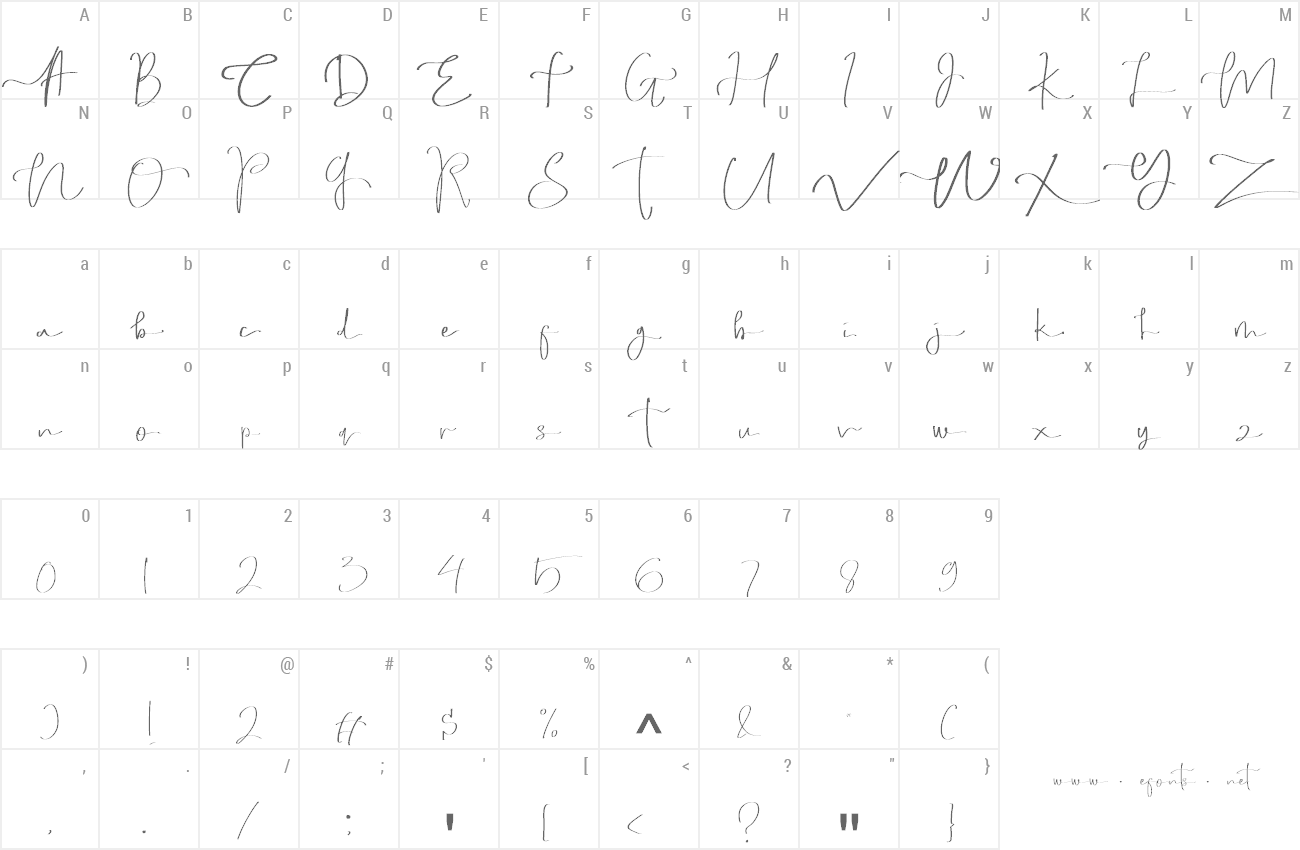
Preview and download Sweet Poems Font. Created by Ontohood in Script Handwritten styles with 100% Free license.
| Font name: | Sweet Poems |
| Author: | Ontohood |
| Note by Ontohood | |